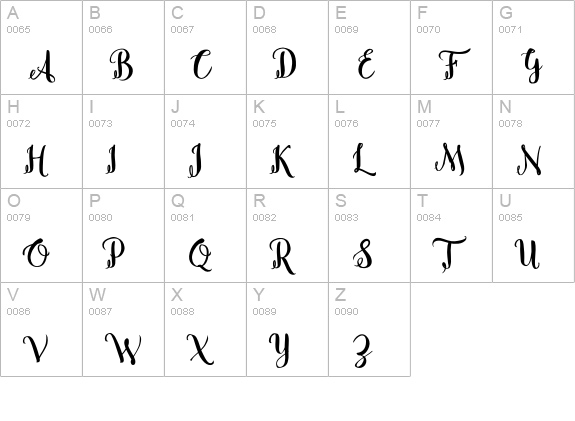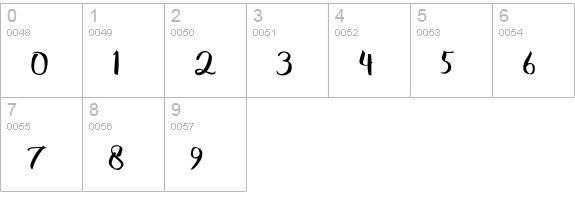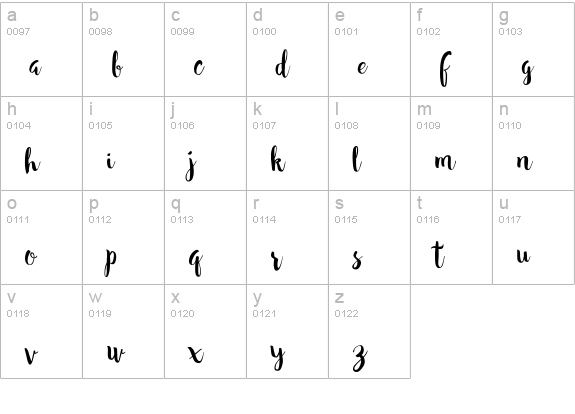
Sweet Blooms Font Details
Sweet Blooms font is a whimsical and charming typeface that will add a touch of sweetness to your designs. With its playful curls and delicate strokes, this font is perfect for creating invitations, greeting cards, and other projects that require a feminine and elegant touch. What makes Sweet Blooms font even more appealing is that it is completely free to download at FontsMarket.com. You can easily access this beautiful font and use it in your projects without any cost. Whether you're a designer looking to add a romantic flair to your work or someone looking to create a heartfelt message, Sweet Blooms font is the perfect choice. Download it today and let your creativity bloom!